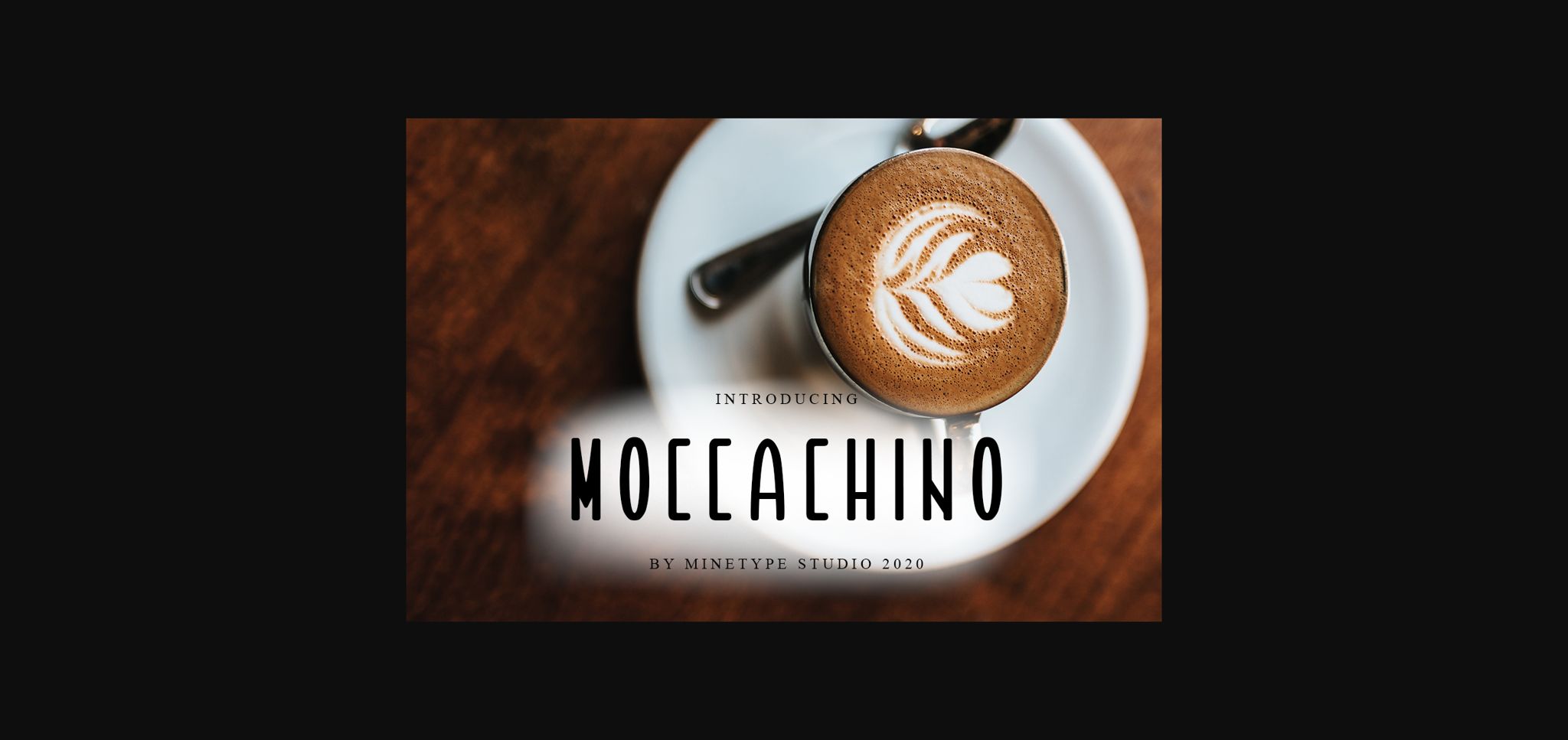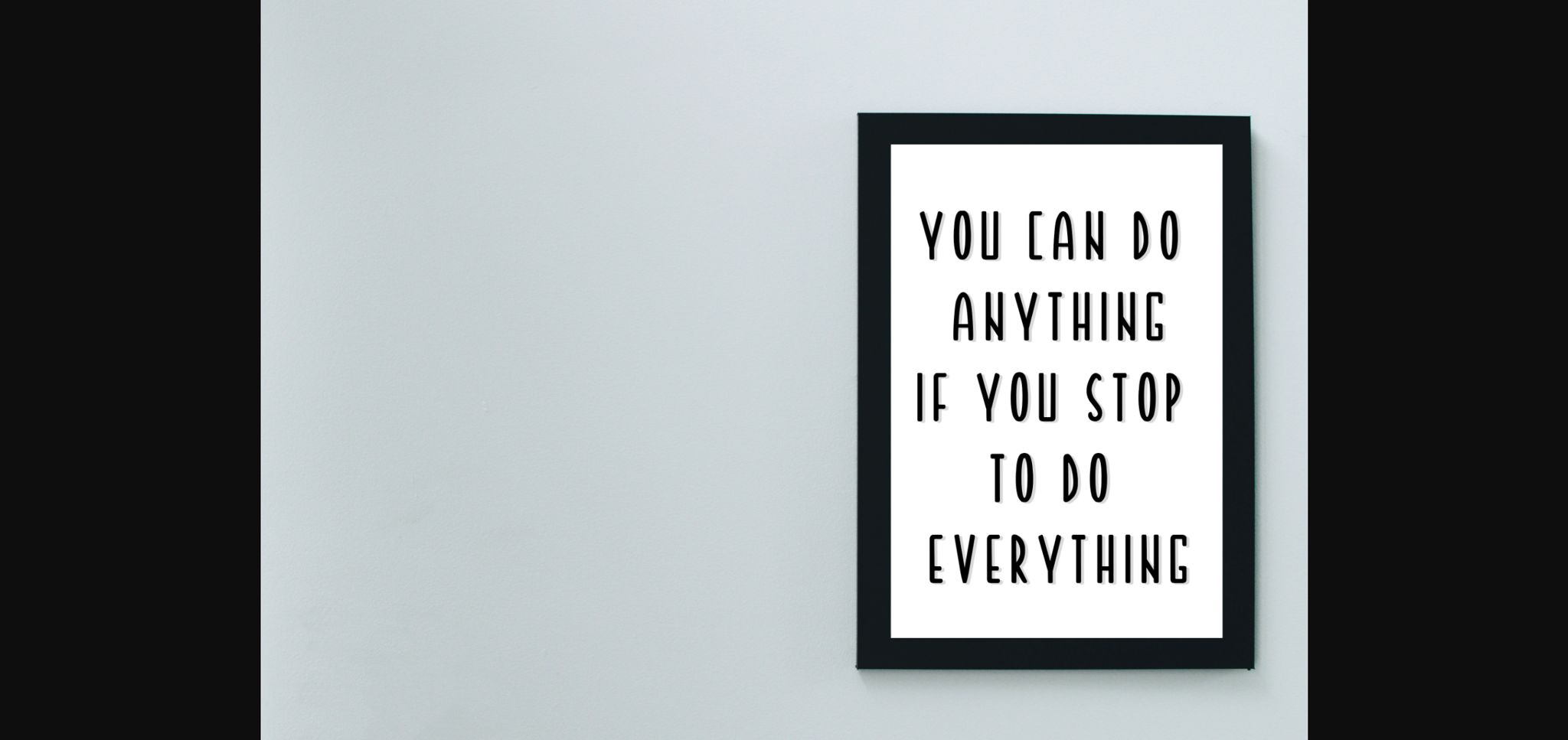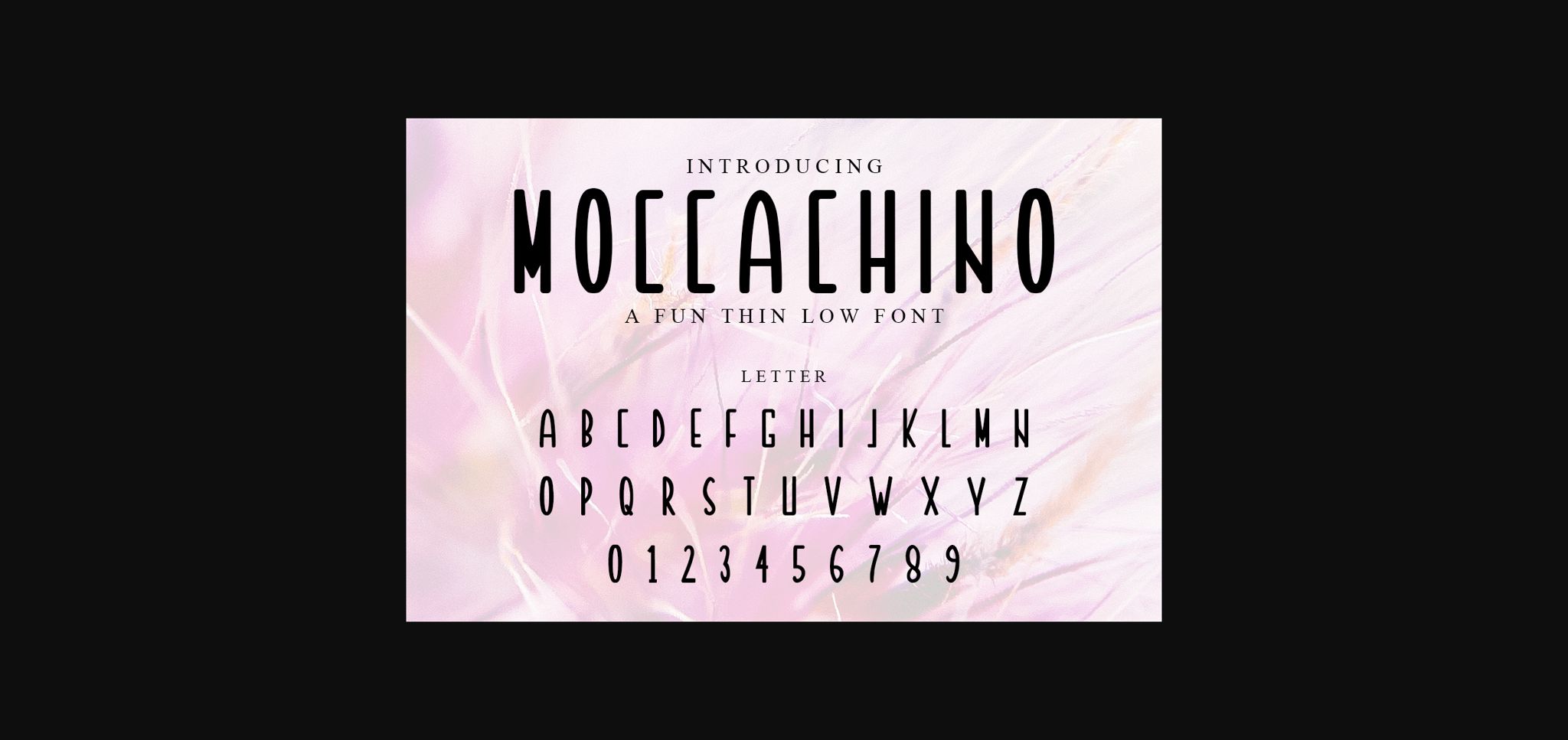
About Moccachino Font
Moccachino is a modern and clean lettered sans serif font. It can be matched to an incredibly large set of projects, so add it to your creative ideas and notice how it makes them stand out!